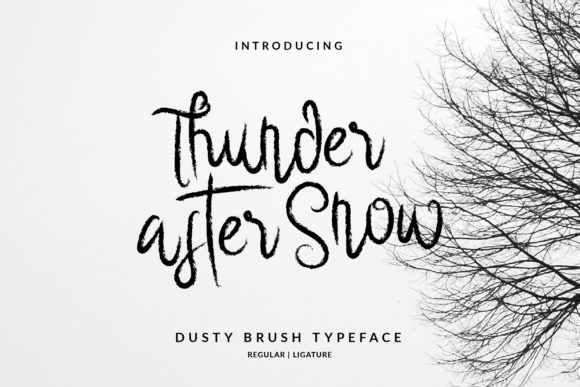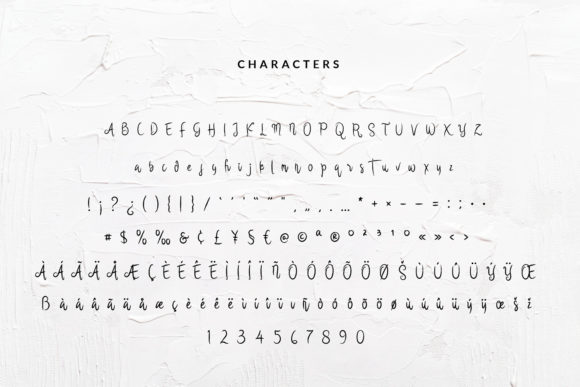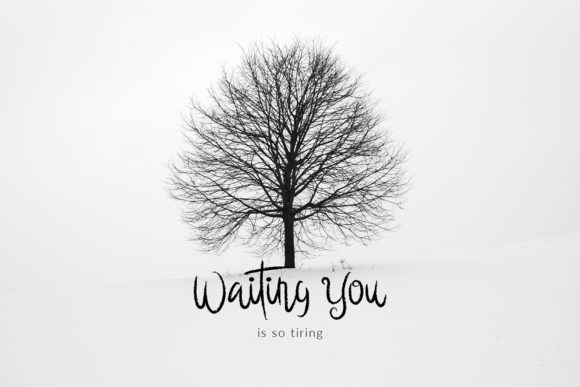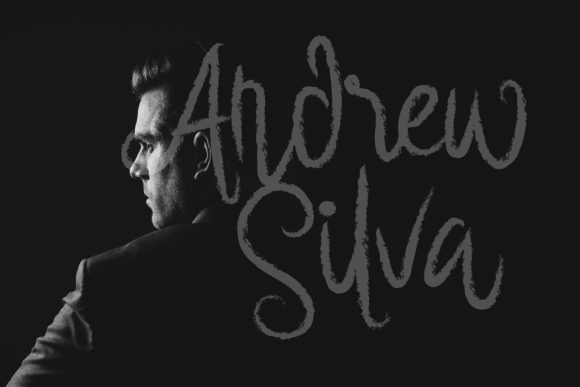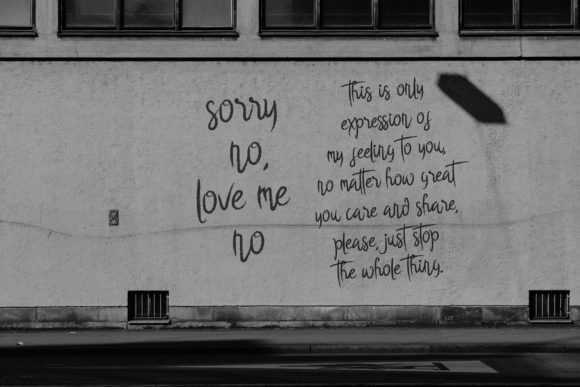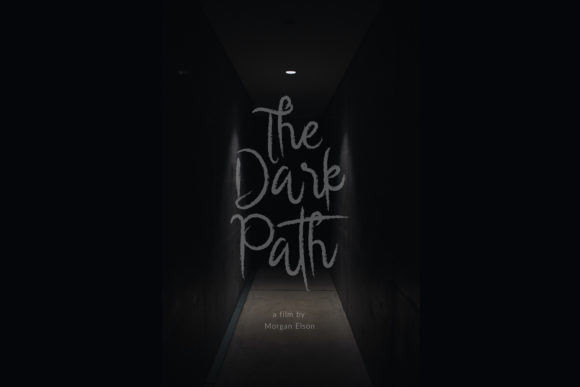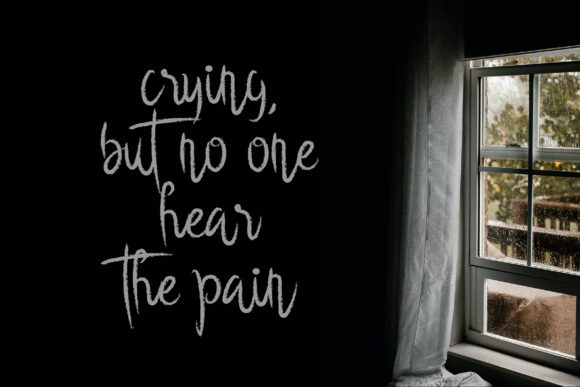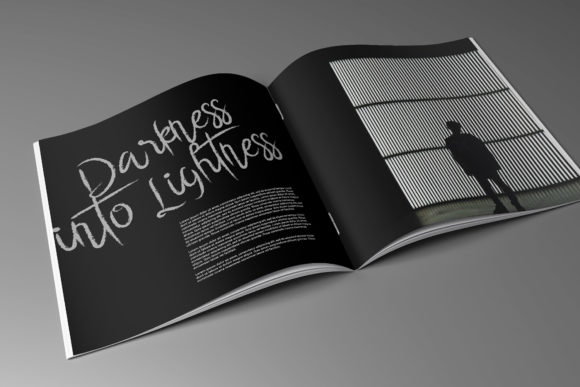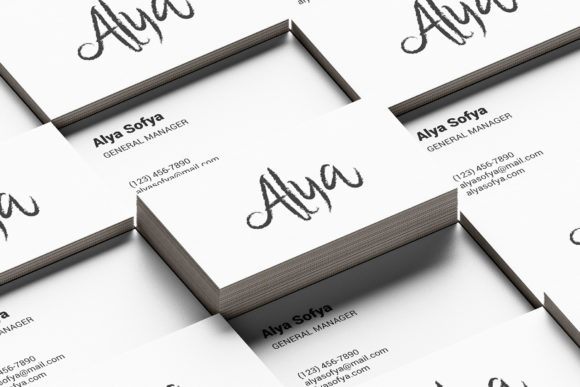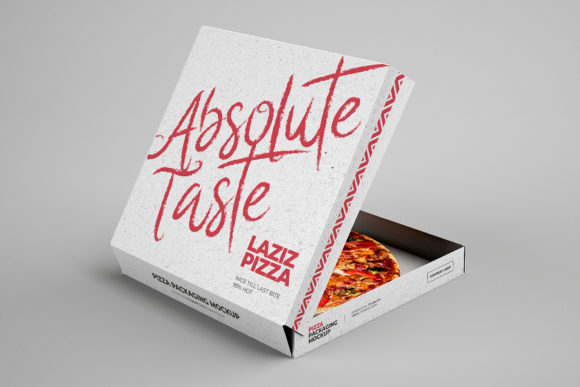
Thunder After Snow Font
About Thunder After Snow Font
Thunder After Snow is an adorable quirky handwritten font. It will add an incredibly joyful touch to your designs.
Fall in love with its playful style and use it to create beautiful stationary art, eye-catching social media posts, and much more!